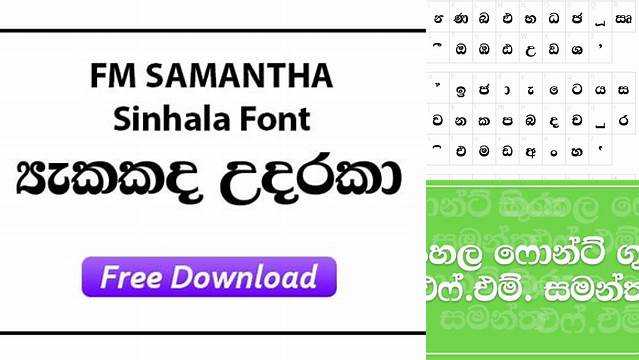
Unpacking the Magic of FM Samantha Sinhala Font
FM Samantha Sinhala Font isn't just another typeface, guys; it's a true cultural cornerstone for countless Sinhala speakers and designers out there. When you're looking to dive deep into the world of beautiful Sinhala typography, understanding what makes FM Samantha truly special is your essential first step. This font, with its elegant curves, clear legibility, and thoughtful design, has carved out a significant and well-deserved niche in the digital landscape of Sri Lanka and beyond. Imagine wanting to create a stunning invitation that needs to convey grace, design a compelling poster that grabs attention, or simply type out a heartfelt message in Sinhala that resonates deeply – FM Samantha often comes to mind as the absolute go-to choice. It beautifully balances traditional Sinhala aesthetic principles with the demands of modern digital needs, making it incredibly versatile across various mediums. Many of you might have encountered this iconic font in various forms, from professional printed materials to engaging websites, often without even realizing the sheer power it holds in conveying meaning, emotion, and cultural identity through its unique and meticulously crafted letterforms. Its widespread popularity stems directly from its consistent design philosophy, which ensures that whether you're utilizing it for eye-catching headlines or extensive body text, the final output is consistently professional, visually appealing, and highly readable. For those of us who deeply appreciate the intricate nuances of language and the artistry of design, FM Samantha represents a thoughtful, harmonious blend of traditional artistry and contemporary digital functionality. We're talking about a font that manages to feel both comfortingly familiar and exquisitely sophisticated, a true testament to the skill and vision of its creators. When we discuss FM Samantha Sinhala Font, we're not just discussing a digital file; we're talking about a powerful tool that empowers creators to express themselves authentically and effectively in Sinhala, skillfully bridging the gap between ancient script traditions and cutting-edge digital design practices. So, before we even get to the exciting part about the free download, it's absolutely crucial to acknowledge the immense impact and the profound design philosophy that underpins this fantastic, culturally significant typeface. It’s not merely about acquiring a file; it’s about embracing a tool that profoundly enhances communication, artistic expression, and cultural preservation in a truly significant way. It’s like finding the absolute perfect brush for your canvas, allowing your creativity to flow freely and without any hindrance whatsoever. And for many, FM Samantha Sinhala Font is precisely that perfect, indispensable brush.
Why FM Samantha Sinhala Font is a Must-Have for Your Toolkit
Let's be real, guys, in today's digital age, having the right fonts can make or break your design projects, presentations, or even just your everyday documents. And when it comes to Sinhala typography, FM Samantha Sinhala Font stands out as a true champion, a must-have for virtually any digital toolkit. What makes it so indispensable, you ask? Well, for starters, its clarity is unparalleled. Unlike some other fonts that can become muddled or difficult to read at smaller sizes, FM Samantha maintains its crispness and legibility, ensuring your message always comes across loud and clear, whether it's on a high-definition screen or a printed page. This isn't just a minor detail; it's crucial for effective communication, especially when dealing with the intricate characters of the Sinhala script. Beyond its readability, the font possesses a remarkable aesthetic appeal. It strikes a beautiful balance between being modern and timeless, allowing it to fit seamlessly into a wide array of design styles, from corporate reports to creative artistic endeavors. Imagine trying to create a project where your font clashes with your message – that’s a nightmare we all want to avoid, right? With FM Samantha, you get a harmonious blend that elevates your content rather than detracting from it. Its versatility also means you won't need a dozen different Sinhala fonts for various tasks; FM Samantha can often handle many of them admirably. Whether you're a professional graphic designer crafting a brand identity, a student preparing an academic paper, a content creator designing social media graphics, or just someone who wants their personal emails in Sinhala to look neat and professional, this font delivers. The sheer consistency in its character design ensures a uniform and polished look across all your texts, fostering trust and professionalism in your work. It truly is a workhorse font that combines beauty with practicality, making the search for a reliable Sinhala typeface much simpler. When you consider the myriad applications and the sheer quality it offers, grabbing the FM Samantha Sinhala Font free download becomes an obvious choice for anyone serious about their Sinhala digital content. It’s not just about having a Sinhala font; it’s about having the best Sinhala font that consistently elevates your work.
Understanding Sinhala Font Standards: Unicode vs. Legacy for FM Samantha
When you're dealing with Sinhala fonts, especially when looking for an FM Samantha Sinhala Font free download, you're quickly going to encounter the terms "Unicode" and "Legacy." And let me tell you, guys, understanding the difference here is absolutely crucial for ensuring your text displays correctly and consistently. It's not just tech jargon; it's about how your Sinhala characters are actually encoded and rendered across different devices and applications. Legacy fonts, like some older versions of FM Samantha, were developed before Unicode became the universal standard. These fonts used their own proprietary encoding schemes, which meant that text typed with one legacy font might look completely garbled or display as a series of strange boxes when viewed with a different font or on a system that didn't have that specific legacy font installed. It was a bit of a wild west, leading to a lot of frustration and compatibility issues. Imagine sending a beautiful Sinhala document to a friend, only for them to see gibberish because they don't have the exact same font installed – super annoying, right? This is where Unicode comes to the rescue. Unicode is an international standard that provides a unique number for every character, no matter what platform, program, or language. This means that a Sinhala 'අ' character, for example, has a specific, universally recognized code point. When you use a Unicode-compliant font, like modern versions of FM Samantha Sinhala Font, your Sinhala text will display correctly on any system that supports Unicode and has any Unicode Sinhala font installed. This is a game-changer for consistency, interoperability, and long-term document preservation. If you're getting an FM Samantha Sinhala Font free download, you absolutely want to make sure you're getting the Unicode version. This will save you endless headaches with compatibility and ensure your Sinhala content is accessible and readable by everyone, everywhere, without needing them to install a specific, obscure font just to view your work. Always double-check the description of the download to confirm it's Unicode-compatible; it's the smart choice for modern Sinhala computing and design, ensuring your beautiful typography is universally understood.
Maximizing Your Designs with FM Samantha Sinhala Font in Graphic Design
For all you graphic designers out there, listen up! Incorporating FM Samantha Sinhala Font into your creative workflow can seriously elevate your projects. This isn't just a font; it's a versatile tool that, when used correctly, can add a layer of sophistication and cultural authenticity to your designs. So, how can you maximize its potential in graphic design? First, consider its primary strength: readability and aesthetic balance. For headlines and titles, FM Samantha really shines. Its clear letterforms ensure immediate impact, making it perfect for banners, posters, social media graphics, and website headers. When you need a strong, authoritative, yet elegant Sinhala presence, this font delivers. Don't be afraid to experiment with size and weight (if different weights are available in your FM Samantha Sinhala Font free download package). Larger sizes allow its intricate details to stand out, while slightly bolder variations can draw attention without sacrificing legibility. Next, think about pairing. While FM Samantha is fantastic on its own, thoughtful font pairing can enhance your design. For English or numerical elements in your design, consider a clean, sans-serif font that complements FM Samantha's elegance without competing with it. A simple Arial, Open Sans, or Roboto can often provide a nice contrast and ensure visual hierarchy. When using FM Samantha for body text, remember its excellent legibility. It's ideal for paragraphs in brochures, magazines, and detailed reports where sustained reading is required. Ensure you provide adequate line spacing (leading) and character spacing (kerning/tracking) to maintain its natural flow and avoid a cramped appearance. This is crucial for any font, but especially for scripts with complex character forms like Sinhala. Moreover, leverage the cultural context. FM Samantha Sinhala Font inherently carries a sense of Sri Lankan identity. Use it in projects that celebrate culture, heritage, or local businesses to create a deeper connection with your audience. Think about traditional events, local product branding, or educational materials. Finally, experiment with color. While black on white is classic, FM Samantha can look stunning in various color palettes. Consider rich, earthy tones or vibrant hues that align with your overall design concept. Remember, your FM Samantha Sinhala Font free download is a gateway to creating compelling, culturally resonant graphic designs. Use it wisely, and watch your Sinhala creations truly stand out!
Boosting Readability: When and How to Use FM Samantha Sinhala Font for Body Text
Alright, guys, let's talk about the unsung hero of good design: body text. While flashy headlines grab attention, it's the body text that holds your reader and conveys your core message. And when it comes to Sinhala content, FM Samantha Sinhala Font is an absolute powerhouse for ensuring top-notch readability. So, when and how should you harness its power for the main chunks of your text? First, when to use it: FM Samantha is ideal for any extended Sinhala reading material. Think articles, blog posts, reports, books, long emails, and even detailed social media captions. Its balanced stroke widths, clear counters (the enclosed spaces within characters), and consistent baseline make it incredibly comfortable for the eyes, even over long stretches. This isn't just a stylistic choice; it's a functional one that reduces reader fatigue and improves comprehension. You want your audience to absorb your information, not struggle with the font! How to use it effectively for body text is equally important. Size matters, big time. For most digital screens, a size between 14px and 18px is generally a sweet spot for FM Samantha Sinhala Font, ensuring it's large enough to read without straining. For print, depending on the medium, 10pt to 12pt is often appropriate. Next, focus on line spacing (often called leading in typography). Sinhala script, with its ascenders and descenders (parts of letters that go above or below the main body), benefits greatly from generous line spacing. This creates breathing room between lines, preventing the text from looking cramped and making it easier for the eye to track from one line to the next. Aim for at least 1.3 to 1.5 times the font size for comfortable reading. Character spacing (kerning and tracking) also plays a role. While FM Samantha is generally well-kerned, if you find paragraphs looking too tight or too loose, make minor adjustments to tracking to improve the overall appearance and flow. Lastly, ensure a good contrast between your FM Samantha Sinhala Font text and its background. Dark text on a light background (like black on white) is the gold standard for readability. While you can experiment with colors, always prioritize contrast to keep your message accessible. By carefully considering these points, your FM Samantha Sinhala Font free download won't just look pretty; it will actively enhance the user experience, making your Sinhala content a pleasure to read and understand. That’s real value, folks!
FM Samantha Sinhala Font for Mobile Devices: Displaying Sinhala on the Go
In our increasingly mobile-first world, ensuring your Sinhala content looks perfect on smartphones and tablets is non-negotiable. And guess what? Your FM Samantha Sinhala Font free download plays a huge role in making that happen! While directly